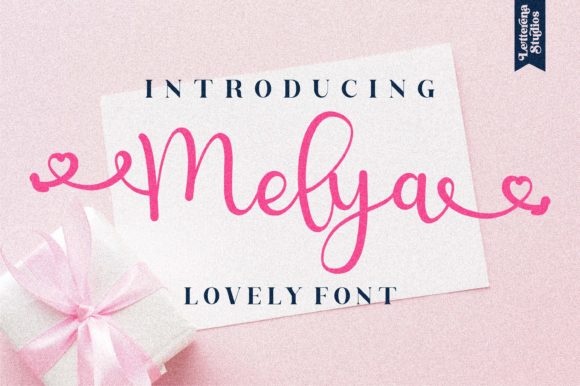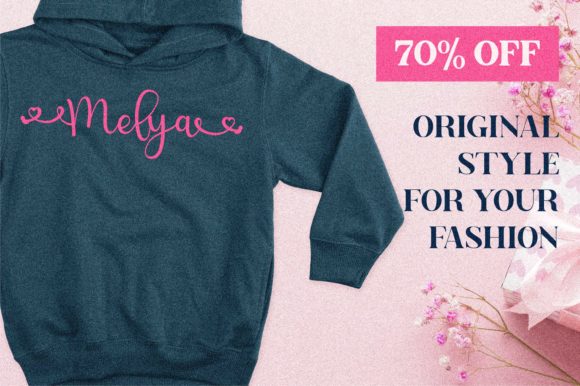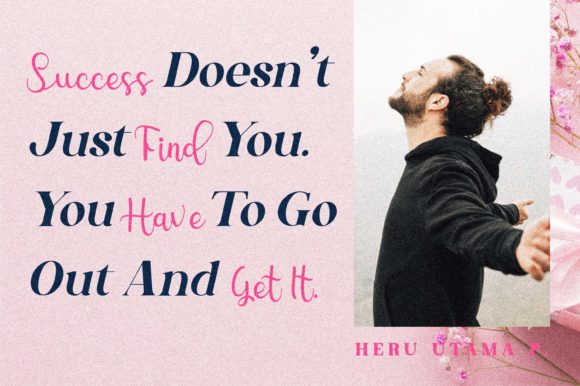
About Melya Font
Melya is an adorable and charming handwritten font that adds a delightful touch to any project. With its cute and playful style, this font is perfect for a wide range of design purposes, making it a versatile choice for your creative endeavors.
Whether you’re working on logos, branding projects, or homeware designs, Melya brings a whimsical and lovable element to your creations. Its handcrafted appearance and unique letterforms make it stand out and add personality to your designs. From product packaging and mugs to quotes, posters, and shopping bags, Melya adds a touch of sweetness and charm.
Melya is also a great choice for printed materials such as t-shirts, book covers, name cards, and invitation cards. Its friendly and inviting nature creates a warm and welcoming atmosphere. Greeting cards and labels adorned with Melya will bring smiles to the faces of your recipients. Additionally, Melya can be used to add a playful and creative touch to photography, watermarks, and special events.
The font’s PUA encoding allows easy access to all of its glyphs and swashes. This means you can effortlessly customize and embellish your text, giving you the freedom to create unique and eye-catching designs. Whether you want to add decorative swashes, flourishes, or other special characters, Melya provides a range of options to enhance your projects.
Let Melya be the delightful companion for your lovely projects. Its cute and handwritten style will add a touch of charm and creativity to your designs, making them truly memorable. Embrace the playful and lovable nature of Melya as you embark on your branding, packaging, or personal projects, and enjoy the joy it brings to your creations.